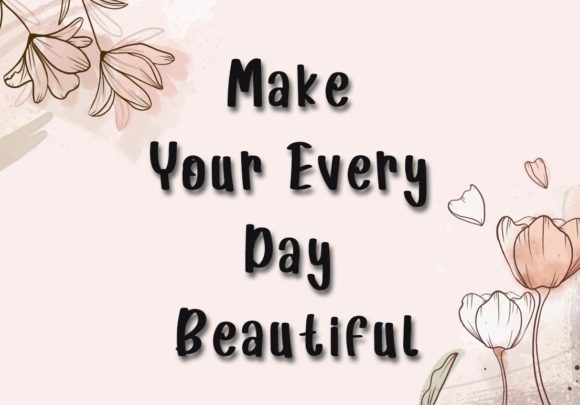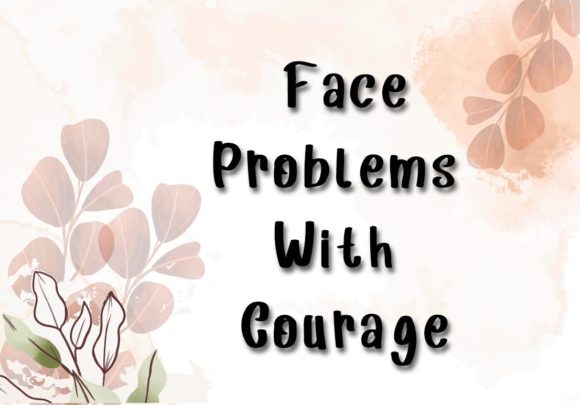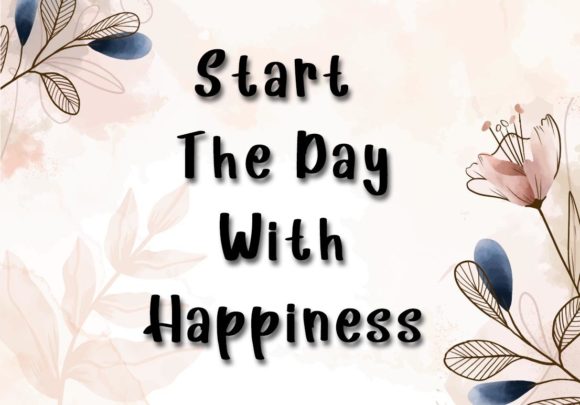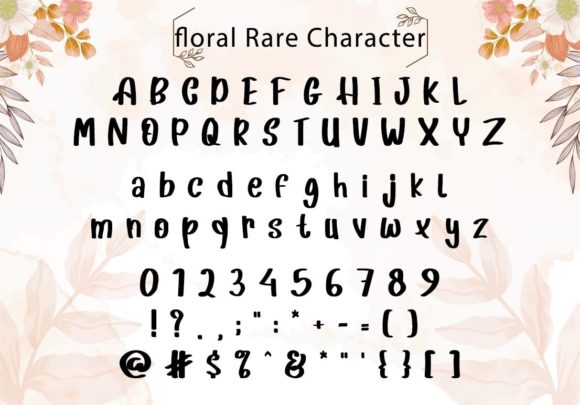
Introduction to Floral Rare Font Font
Fonts play a crucial role in design, and the Floral Rare Font font is a typeface that brings both character and versatility to any project. Whether you’re working on a branding project, a website, or a print design, the Floral Rare Font font offers a unique style that can elevate your work.
Floral Rare is a cute and casual handwritten font that will look outstanding in any context.
Whether youβre looking for fonts for Instagram or calligraphy scripts for DIY projects, this font will turn any creative idea into a true piece of art Floral Rare is great for logos, headings, t-shirts, letterheads, signage, labels, news, posters, badges, etc.
Key Features of Floral Rare Font Font
Why Choose Floral Rare Font Font?
The Floral Rare Font font is more than just a typeface β it’s a design tool that helps you communicate your message with style and clarity. Its unique character set and versatile design make it suitable for a wide range of applications, from elegant invitations to bold headlines.
With its carefully crafted letterforms and balanced proportions, the Floral Rare Font font ensures readability and visual appeal across all mediums.
What makes Floral Rare Font font special?
The Floral Rare Font font stands out with its unique design, exceptional readability, and versatility across various design applications.